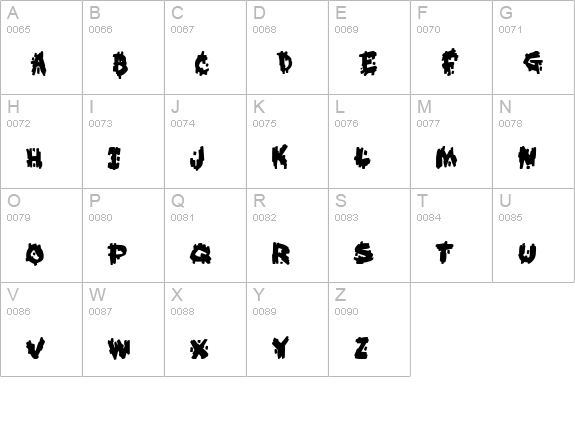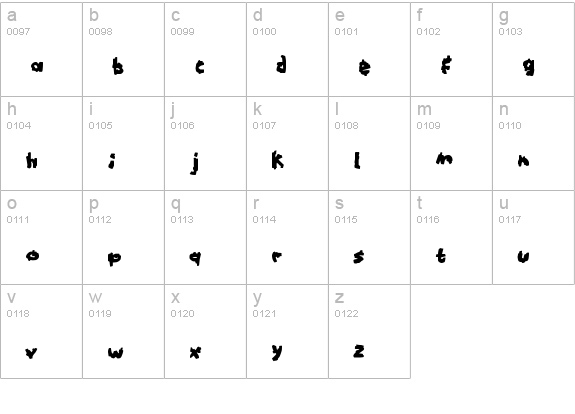
Kookaburra Font Details
The Kookaburra font is a charming and playful typeface that exudes a sense of whimsy and creativity. Its unique design features a delightful combination of rounded edges and bold strokes, making it perfect for a variety of design projects. Whether you're creating a fun poster, a quirky logo, or a cheerful greeting card, the Kookaburra font is sure to add a touch of character and personality to your work. Best of all, the Kookaburra font is available for free download at FontsMarket.com. With just a few clicks, you can easily incorporate this fun and versatile typeface into your designs, without having to pay a cent. So why wait? Add a touch of whimsy to your projects today with the Kookaburra font!